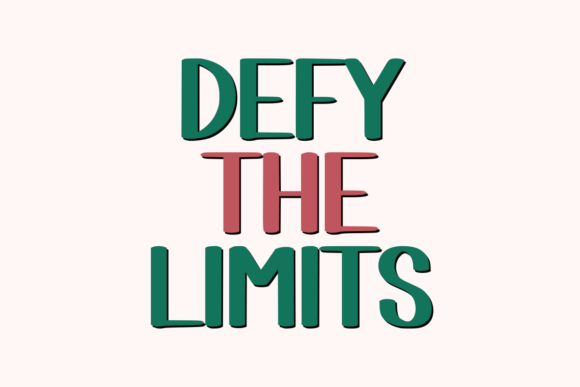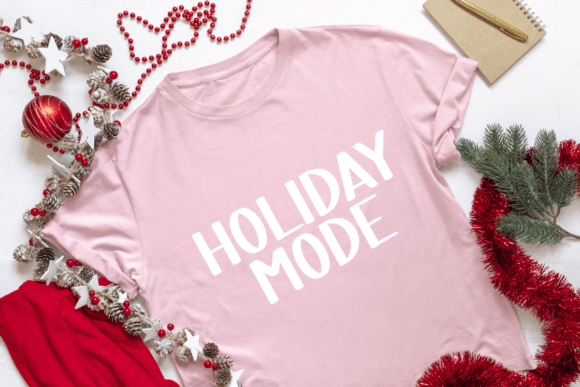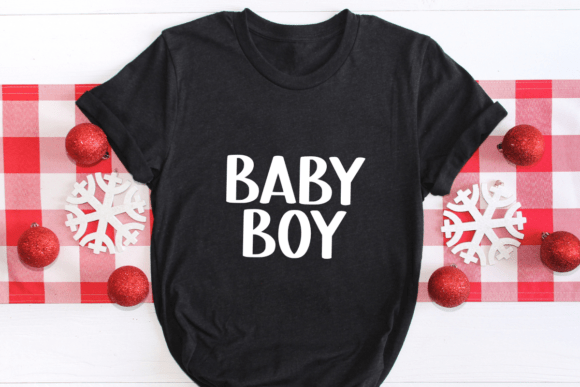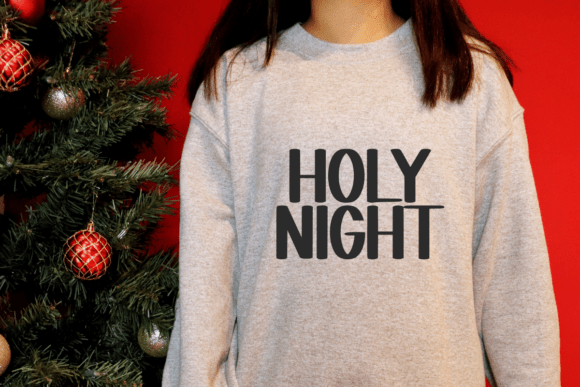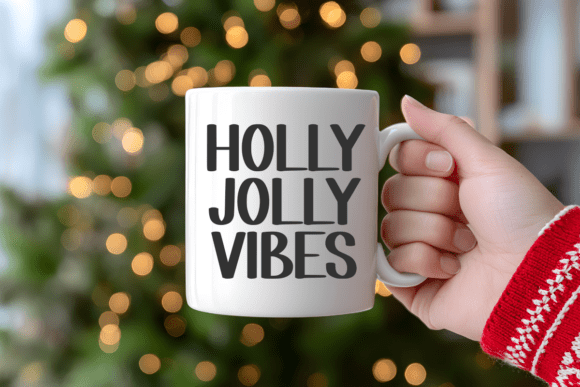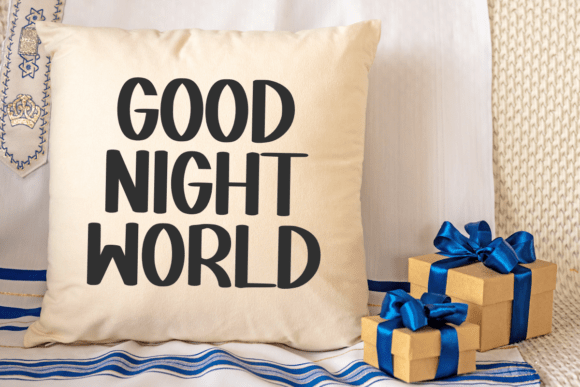
Introduction to Jollyly Cupids Font
Do you ever find yourself rummaging through your craft supplies, searching for the perfect font to match your creative vision? I’m sure many of us designers have been there, trying to find that elusive combination of style and personality to elevate our projects. As I was working on a recent craft project, I stumbled upon the Jollyly Cupids Font – and it was love at first sight! Its soft, friendly, and natural look immediately caught my attention, and I couldn’t wait to dive in and explore its endless possibilities.
As a design resource, the Jollyly Cupids Font is a treasure trove for creative projects. With its high-quality design and transparent background, it’s perfect for crafting moms, DIY enthusiasts, and designers alike. Whether you’re working on a sticker design, a planner layout, or a kid’s worksheet, this font brings a warm handcrafted feeling that’s simply irresistible.
Key Features of Jollyly Cupids Font
- Unique, playful design with a high quality aesthetic, perfect for creative projects and design resources.
- Includes a range of glyphs and characters, making it suitable for various creative projects, from logos to typography.
Honest Review: Jollyly Cupids Font
I recently came across the Jollyly Cupids Font while searching for a design resource to enhance my creative project. The initial impression was positive, with a clear and transparent background that made the font stand out. The font’s high quality is evident in its crisp lines and well-defined characters.
What works well with the Jollyly Cupids Font is its versatility. It can be used for a variety of creative projects, from children’s books to wedding invitations. The font’s playful and whimsical nature makes it perfect for conveying a sense of joy and happiness. ✨
- Easy to read and understand
However, there are a few limitations to consider. The font may not be suitable for formal or professional projects, as it has a more playful tone. Additionally, the font’s design may not be as complex or detailed as some users may expect. ⚠️
Overall, I would recommend the Jollyly Cupids Font for designers looking for a high-quality, free design resource for their creative projects. While it may have some limitations, its versatility and playfulness make it a great addition to any design library.
The Jollyly Cupids Font is perfect for a variety of creative projects, including invitations, greeting cards, and social media graphics. Its playful and whimsical style makes it ideal for designs that require a touch of humor or romance.